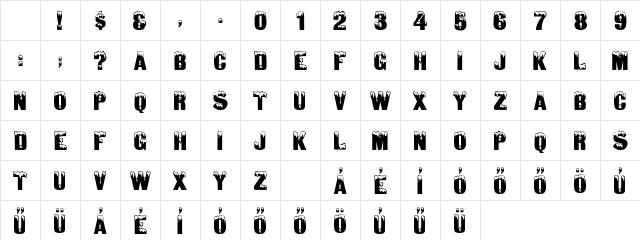
Complete IglooLaser-MedHU Normal glyph index. Displaying only characters natively supported by IglooLaser-MedHU Normal font.
IglooLaser-MedHU is a composed and adaptable typeface that performs quietly and consistently across a wide range of design contexts.
Pro Tip: Use IglooLaser-MedHU in both headline and body roles to test its range before committing to a single application.